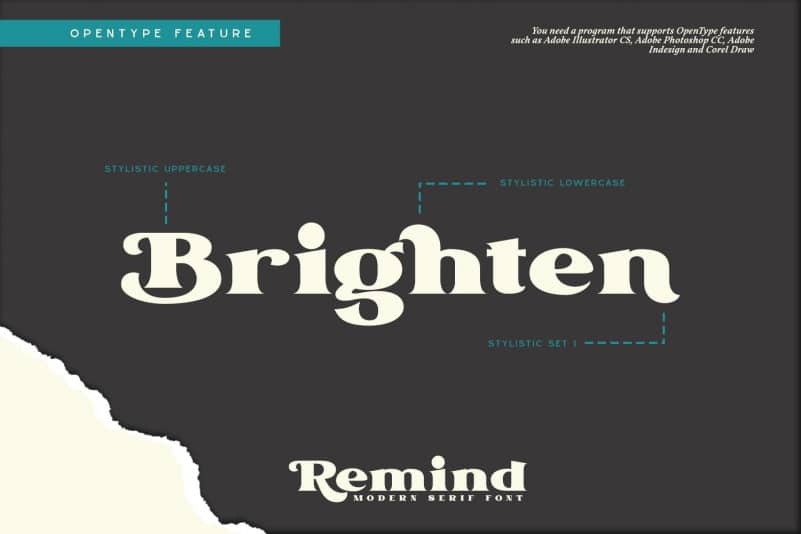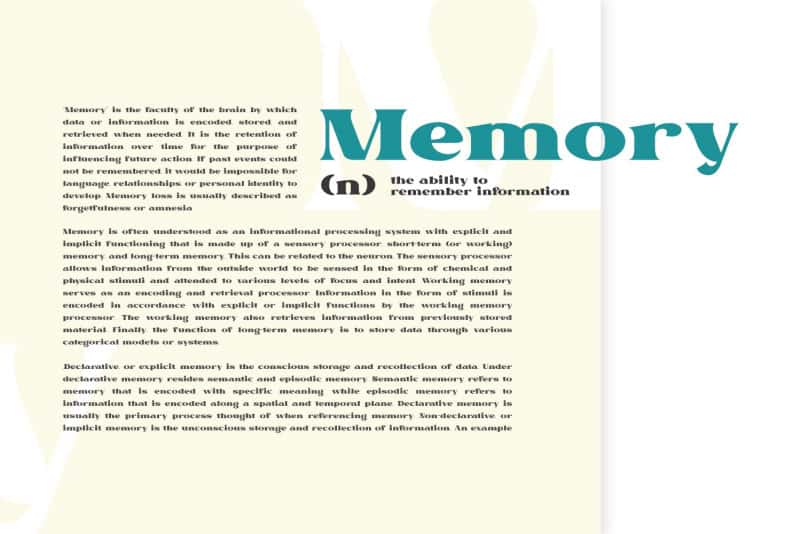
Remind Serif Font is a friendly, legible, geometric sans-serif font with soft rounded characters parts that pass over the x-height. The design of typeface will make your design more beautiful and inspiring.
This simple font was created to be easy to read and integrate in any design project that requires a charismatic, smooth sans by itself or as a companion for a decorative, display font. This font will suitable for any project, like branding, print template, logo and etc.